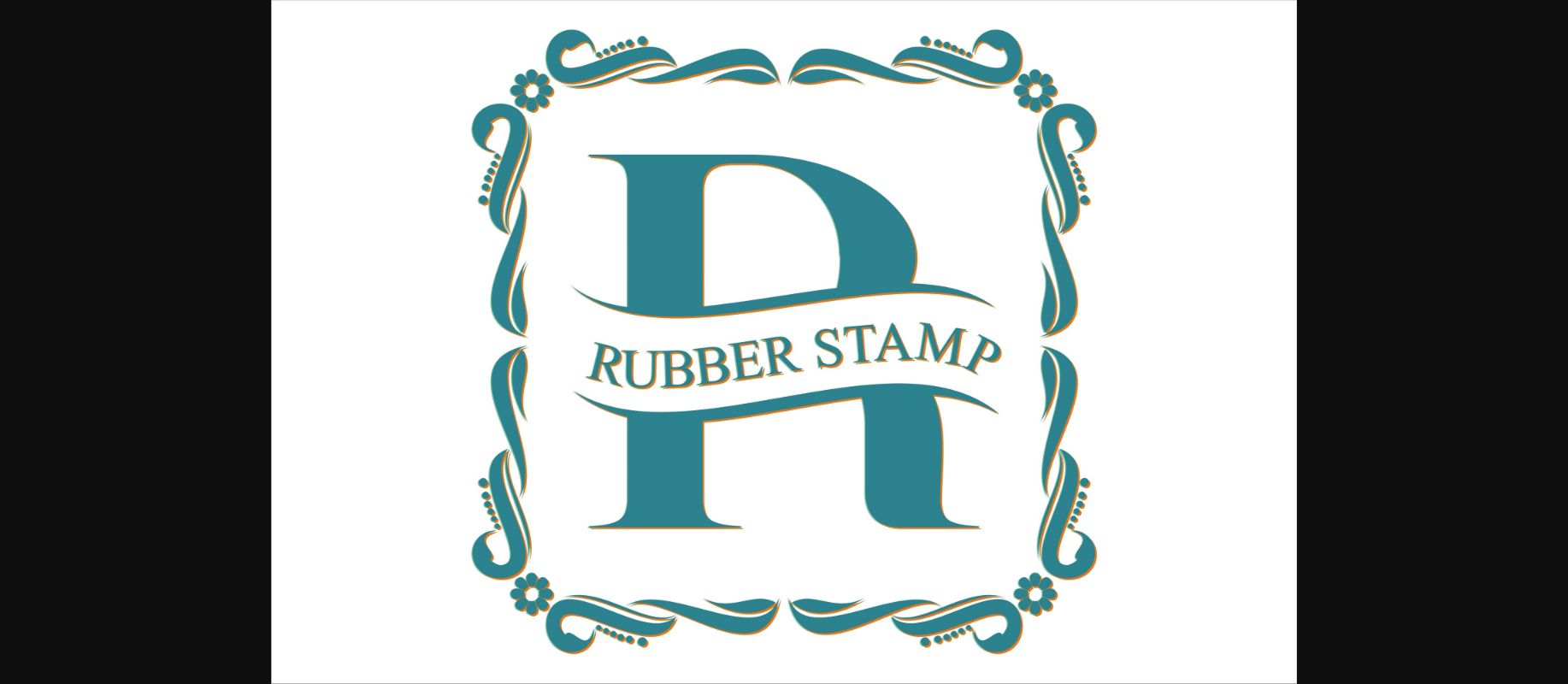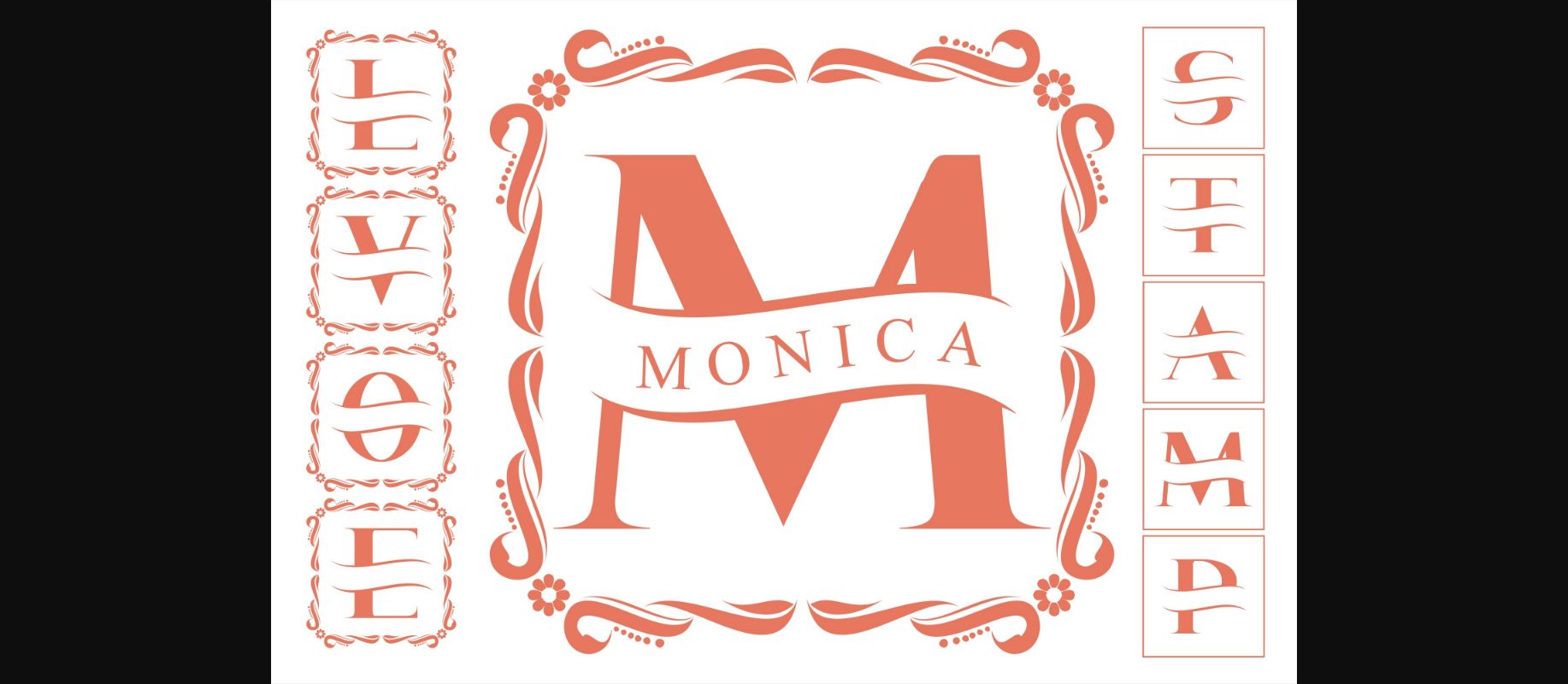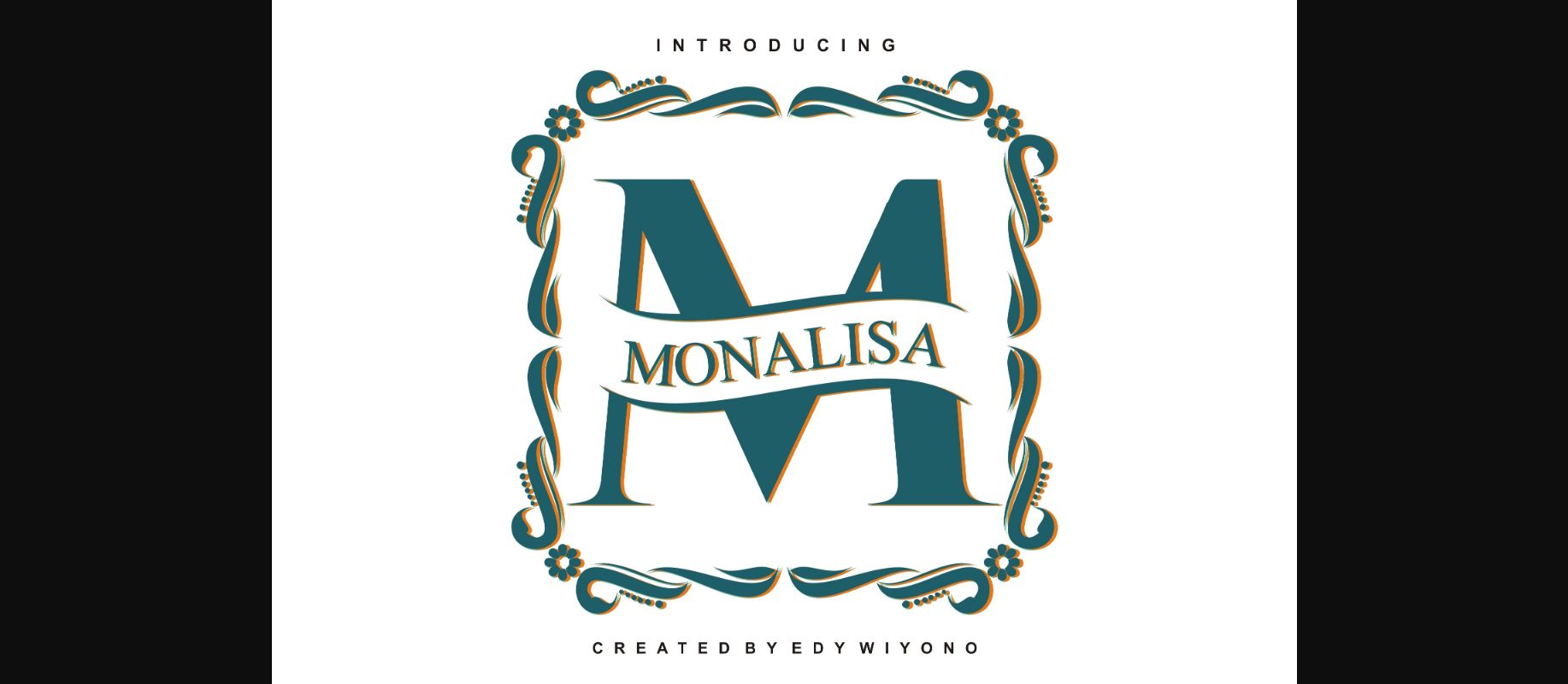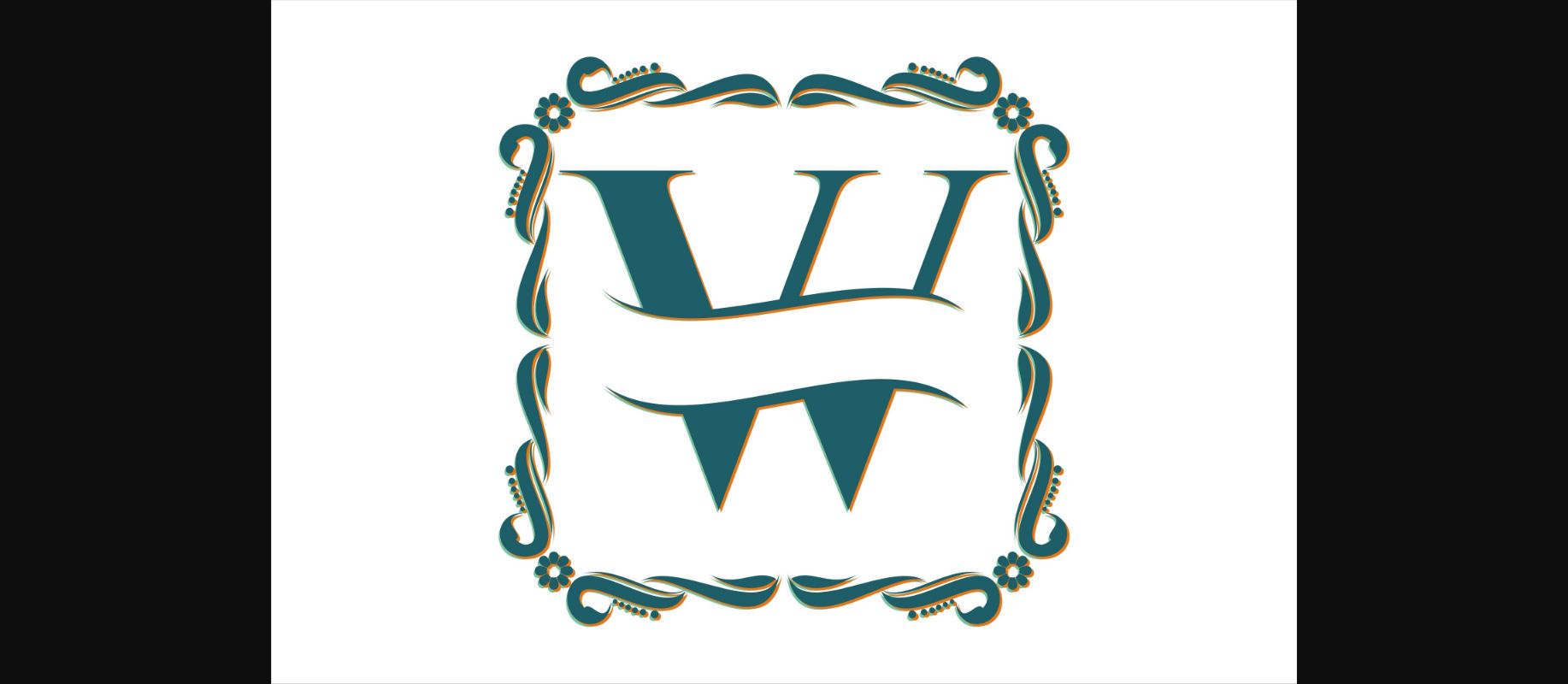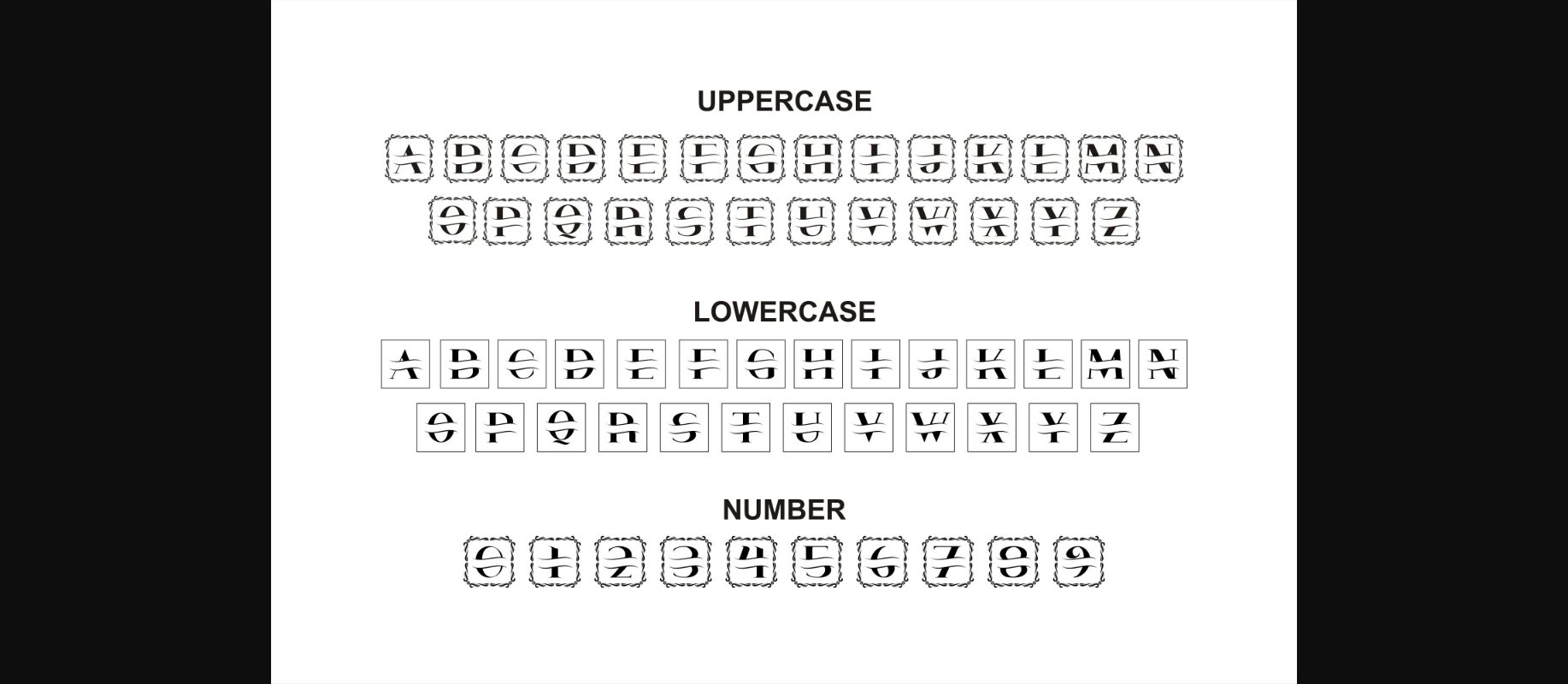
Rubber Stamp Font
About Rubber Stamp Font
Rubber Stamp is a font with a decorative border theme, and very beautiful frame ornaments, and very suitable for wedding themes, valentines, and other romantic moments. Rubber Stamp is a decorative font with an elegant and decorative flower frame theme. This font is perfect for invitations, greeting cards, business cards, book cover designs, and other design materials. Chic and jolly, this font will brighten up each of your designs. Add it confidently to your projects, and you will love the results.